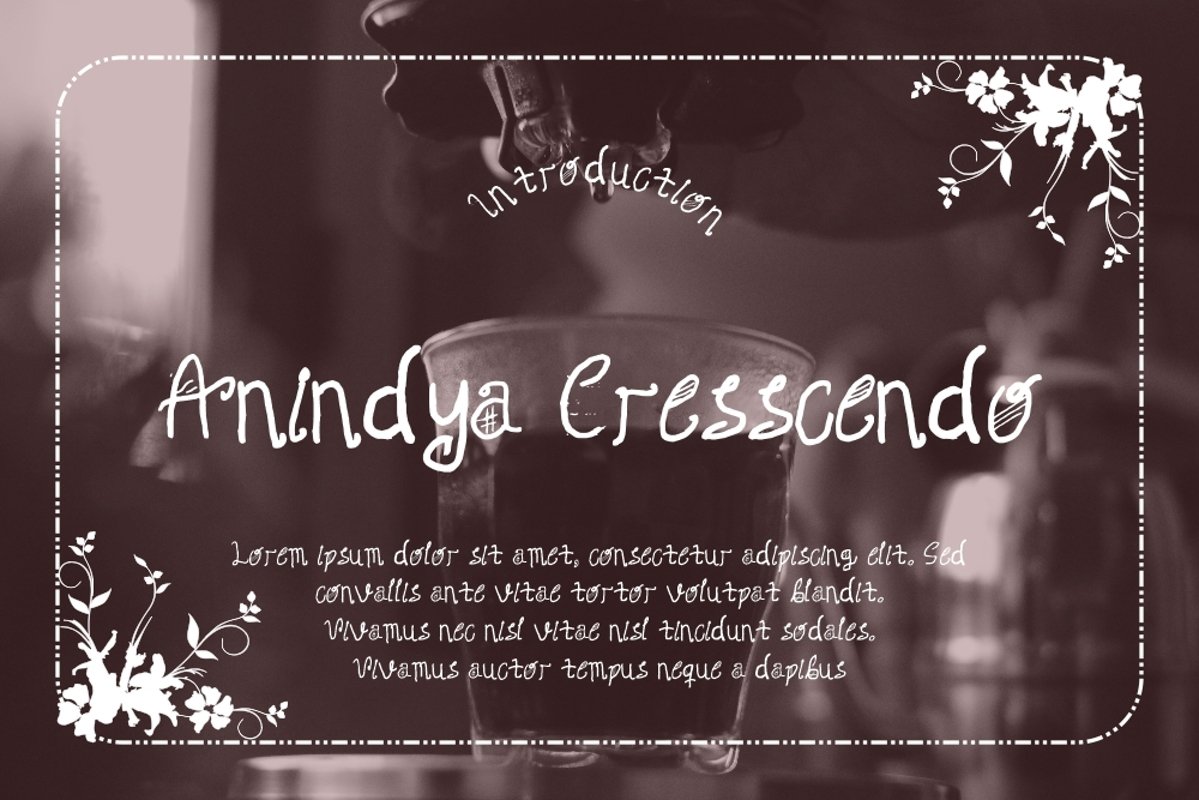
Anindya Cresscendo
Anindya Cresscendo Typeface is a Display type. It suitable for any vintage type needs and more Happy creating.Very suitable for you who do exploration